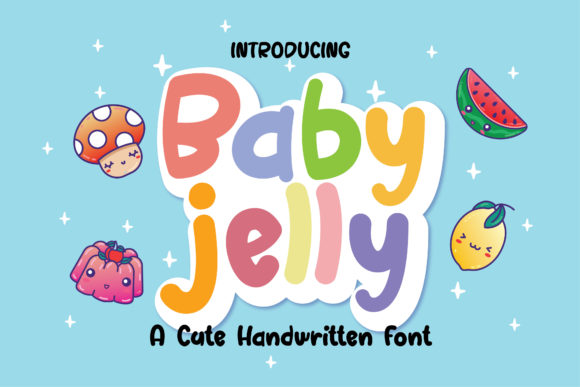
Welcome to the world of Baby Jelly Font - a display font that exudes a captivating, organic charm. Its smooth, flowing curves and retro vibe evoke a sense of nostalgia and playfulness, making it a perfect choice for injecting personality and warmth into your designs.
Crafted with precision and attention to detail, Baby Jelly Font is ideal for creating eye-catching logos and branding materials. Whether you're designing wedding invitations, event posters, or social media graphics, this font will elevate your work and leave a lasting impression.
But that's not all - Baby Jelly Font also shines in web design and app development. Its clean, legible lines and versatile style make it a top choice for user interfaces, headers, and call-to-action buttons. Say goodbye to boring, generic fonts and embrace the uniqueness of Baby Jelly Font.
With Baby Jelly Font, you can:
- Craft heartfelt wedding invitations that capture the joy and excitement of your special day.
- Design charming posters for events that exude a warm and inviting atmosphere.
- Create social media graphics that pop and engage your audience.
- Develop visually appealing logos and branding materials that stand out from the crowd.
- Elevate your web design and app development projects with a font that's both functional and stylish.